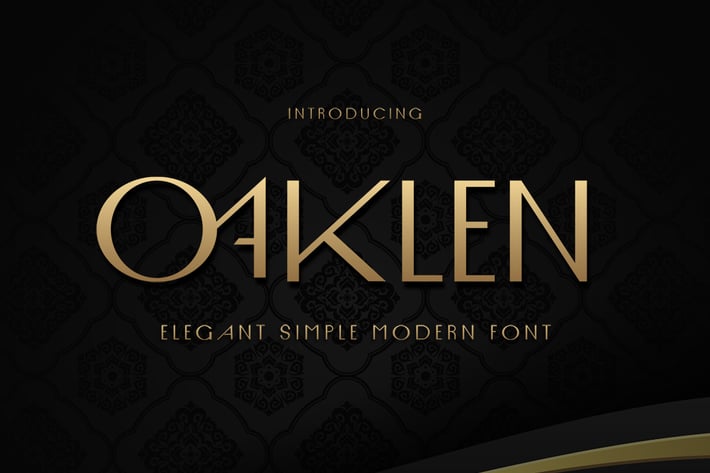
Oaklen - Elegant Font
Introducing Oaklen, an elegant, luxury, and modern sans serif font. Its unique and lovely feel.
So perfect for you who needs a typeface for logo designs, magazine, social media, brochure, and many more.
+ Uppercase
+ Punctuation
+ Numerals